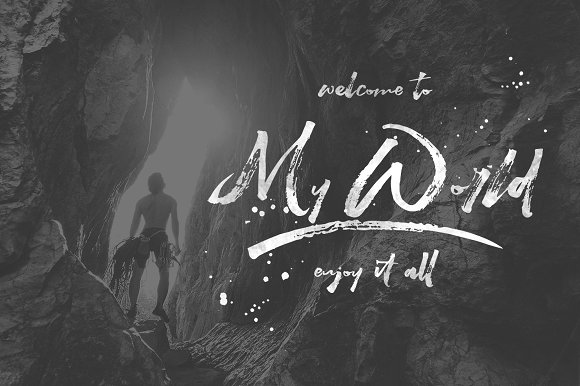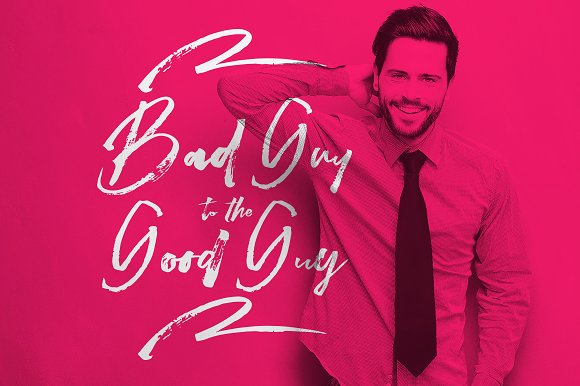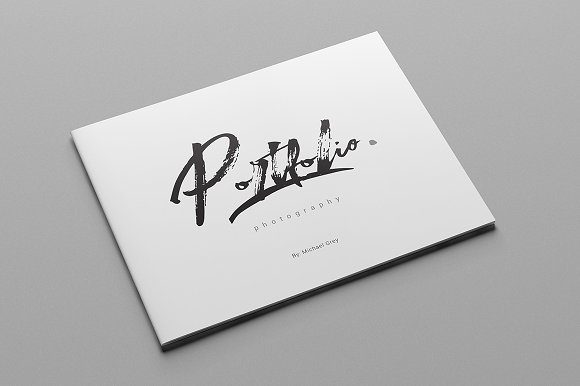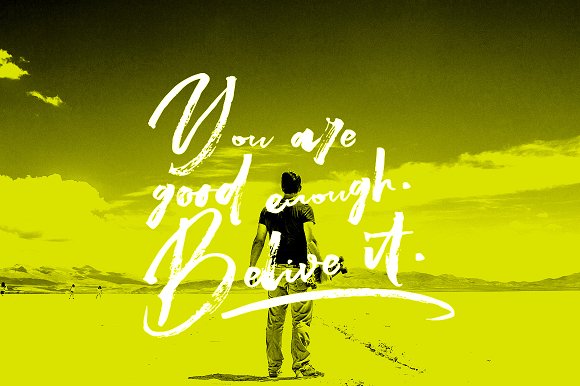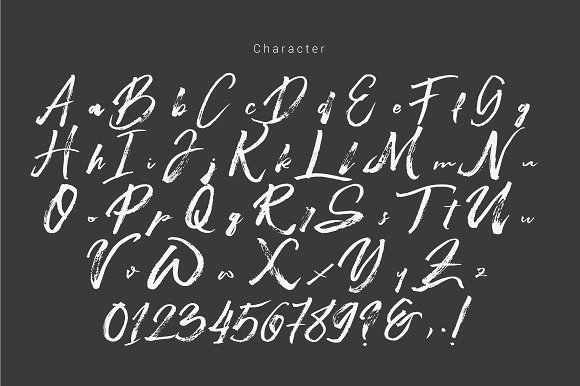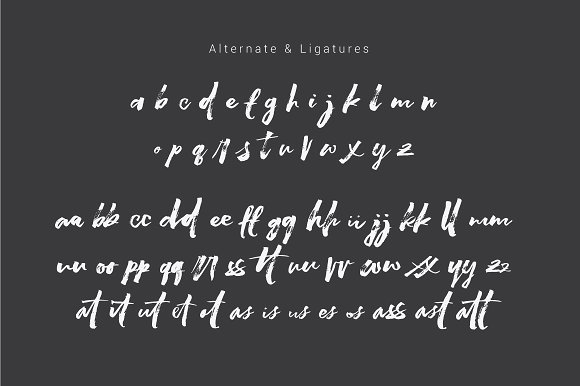
HomeScript FontsBeastmachine Font Script Fonts Beastmachine Font FacebookXPinterestWhatsApp Beastmachine Font Poster 2 Beastmachine Font Poster 3 Beastmachine Font Poster 4 Beastmachine Font Poster 5 Beastmachine Font Poster 6 Beastmachine Font Poster 7 About Beastmachine Font Beastmachine is a hand brushed typeface. It features an irregular handwritten style. DOWNLOAD ON CREATIVE FABRICAThis font is sold and delivered by Creative Fabrica. Font Canyon may earn a commission if you buy through this link. People also explored Radio Active Font Skull Dutchman Font Quick Start Font Zabar Font Monstere Font Minimum Dedlock Font Boilover Font Bookkeeping JNL Font Davina Font 280 0 TagsBeastmachine Font Previous articleBeauty Angelique FontNext articleAngelow Font LEAVE A REPLY Cancel reply Comment: Please enter your comment! Name:* Please enter your name here Email:* You have entered an incorrect email address! Please enter your email address here Website: Save my name, email, and website in this browser for the next time I comment. Personal Use Free Rogueland Personal Use Free Read more about this font Mixed Artistry Personal Use Free Read more about this font Baby Magnolia Personal Use Free Read more about this font Gupis Personal Use Free Read more about this font BLOG Using Fonts in Digital Marketing: Tips to Strengthen Your Brand Identity In the realm of digital marketing, every visual element plays a crucial role in shaping a brand's identity, and fonts are no exception. The... To increase your work productivity, choose the most readable fonts. Best Fonts for YouTube Videos: Make Your Thumbnails Stand Out 5 Fonts That Will Dominate Design Trends in 2026